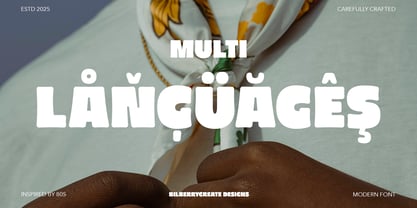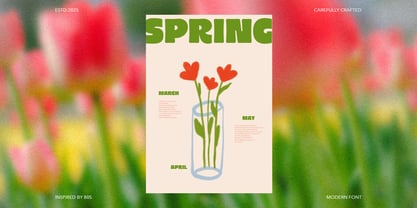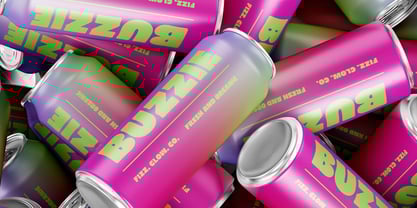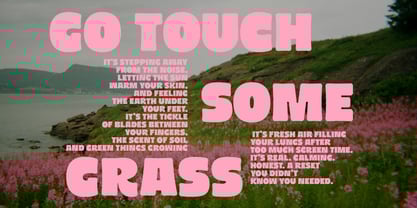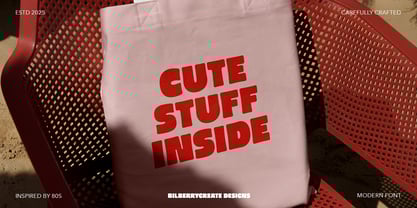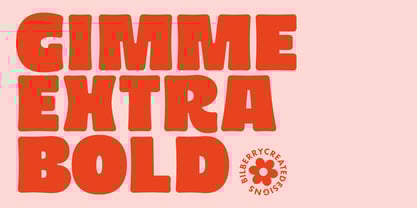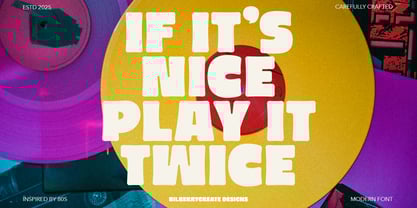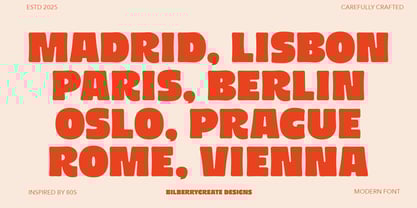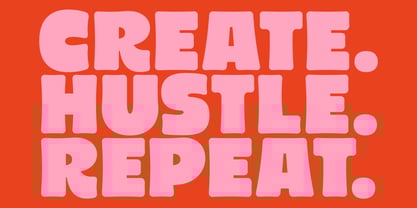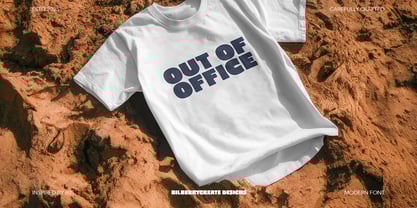
Gimme Extra Bold
by Bilberry Create
The Gimme Extra Bold Font Family was designed by Daria Cherniackova and published by Bilberry Create. Gimme Extra Bold contains 1 styles. More about this family
Gimme Extra Bold Sans Serif Font!
Gimme Extra Bold inspired by 80s. Groovy, Funky and Retro vibe! This product was created to help you make your digital images even more beautiful and unique.
• Gimme Extra Bold
• Multilingual
Designers: Daria Cherniackova
Foundry: Bilberry Create